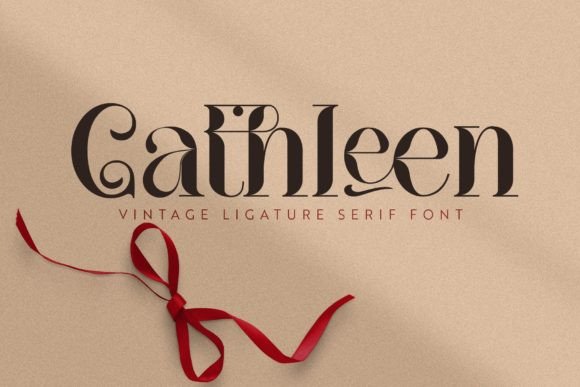
I still remember the frustration of working on a project, hours spent crafting the perfect design, only to realize that the font I chose just wasn’t cutting it. The client wanted something elegant, glamorous, and sophisticated, but my font just didn’t deliver. That’s when I stumbled upon Cathleen, a modern ligature serif font that instantly elevated my designs to the next level.
First Impressions: What I Love About Cathleen
Cathleen is a game-changer for designers, crafters, and creative hobbyists looking to add a touch of elegance to their work. Here are some things I love about this font:
- ✨ Modern ligature serif design: Cathleen brings a fresh spin to traditional serif fonts, making it perfect for designs that require a bit of sophistication.
- ✅ PUA encoded: With PUA encoding, accessing glyphs and ligatures is a breeze, giving you more creative control over your designs.
- 💫 Elegant and glamorous: Cathleen’s classic vintage inspiration makes it ideal for designs that require a touch of luxury and refinement.
The Not-So-Perfect: Small Quirks and Limitations
While Cathleen is an excellent font, it’s not without its quirks. Here are a few things to keep in mind:
- 🤔 Limited use in body text: Due to its elegant and decorative nature, Cathleen might not be the best choice for lengthy body text. It’s better suited for headings, titles, and short paragraphs.
The Story Behind Cathleen: Designer Inspiration
Cathleen’s design draws inspiration from classical vintage typography, aiming to bring a sense of elegance and glamour to modern designs. The creator sought to craft a font that would not only pay homage to traditional typography but also offer something fresh and modern. The result is a ligature serif font that feels both nostalgic and contemporary.
| What is Cathleen? | Cathleen is a modern ligature serif font inspired by classical vintage typography, designed to add elegance and glamour to your designs. |
| Is Cathleen PUA encoded? | Yes, Cathleen is PUA encoded, making it easy to access all the glyphs and ligatures. |
| Does Cathleen support OpenType features? | Yes, Cathleen supports OpenType features, allowing you to access advanced typographic features in compatible software. |